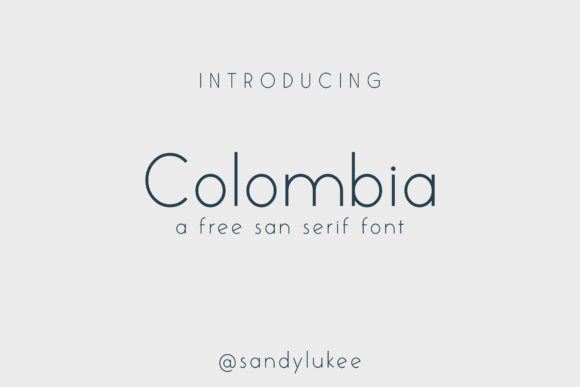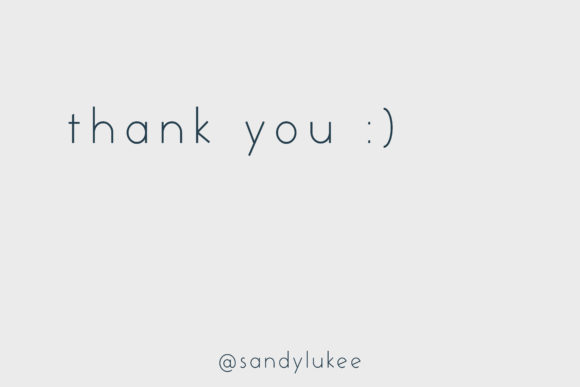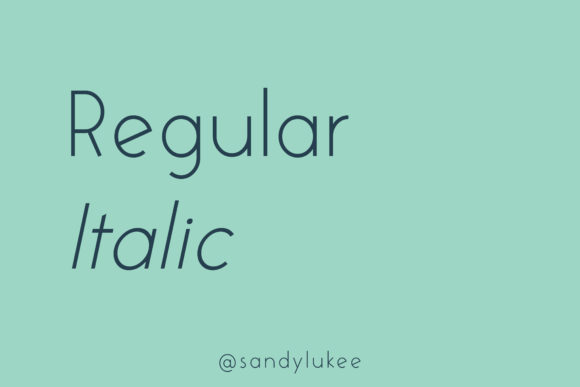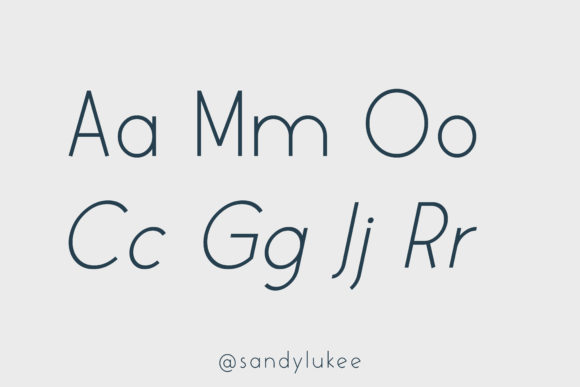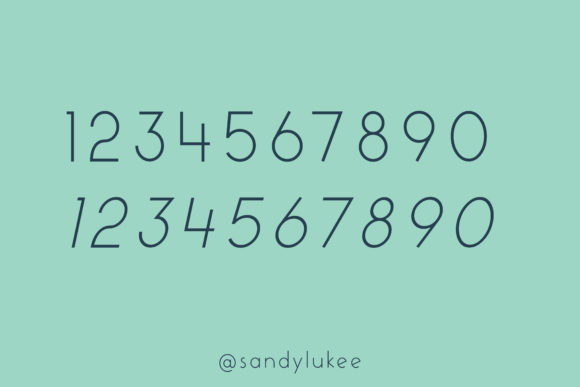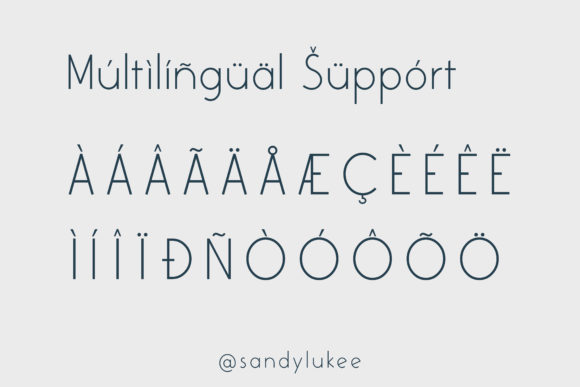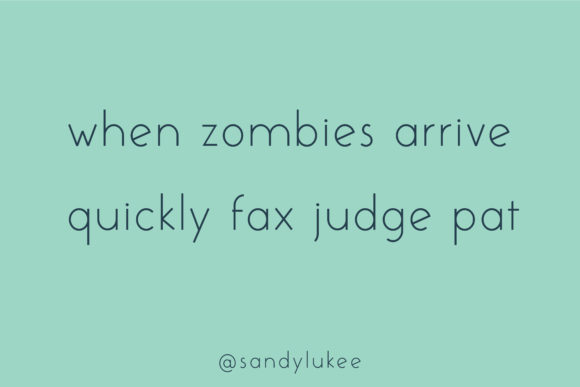
HomePersonal Use FreeColombia Personal Use Free Colombia FacebookTwitterPinterestWhatsApp 1 of 7 About Colombia Font Colombia is a minimal and neat sans serif font. It can easily be matched to an incredibly large set of projects, so add it to your creative ideas and notice how it makes them stand out! DOWNLOAD NOW People also explored Hallooween Font After Font Skyler Charleigh Font Caroline Quinn Font Smys Font Crog Font Holly Christmas Font Jinkers Font Shiny Stars Font 262 0 TagsColombia FontColombian Previous articleThe BocahNext articleTalking on LEAVE A REPLY Cancel reply Comment: Please enter your comment! Name:* Please enter your name here Email:* You have entered an incorrect email address! Please enter your email address here Website: Save my name, email, and website in this browser for the next time I comment. Personal Use Free Arc Personal Use Free Read more about this font Evensong Hollow Personal Use Free Read more about this font Baby Mollusca Personal Use Free Read more about this font Die Nasty Personal Use Free Read more about this font BLOG Using Fonts in Digital Marketing: Tips to Strengthen Your Brand Identity In the realm of digital marketing, every visual element plays a crucial role in shaping a brand's identity, and fonts are no exception. The... Where to Buy American Fonts Online in 2024 Elegant Wedding Invitation Fonts – Handwritten & Script Fonts Transform Your Website: Elevate Your Typography with 7 Best Web Font Generators